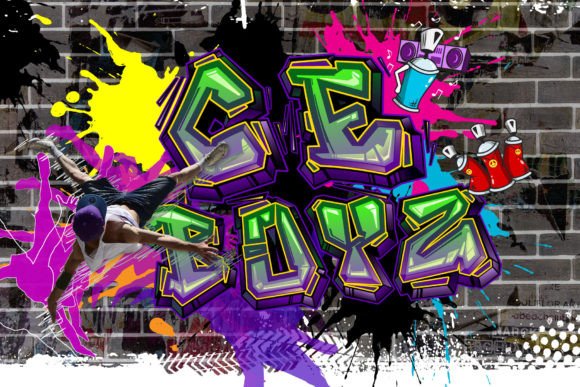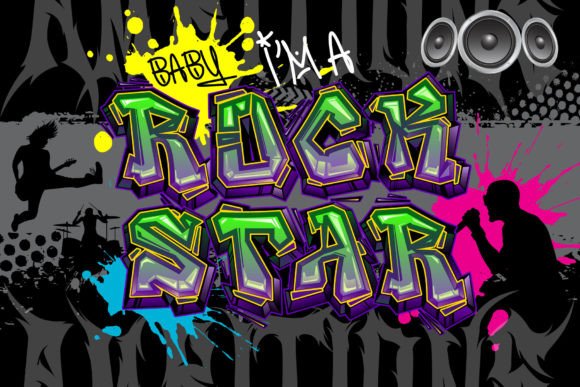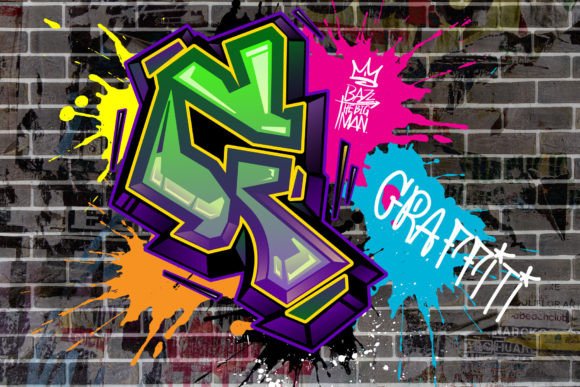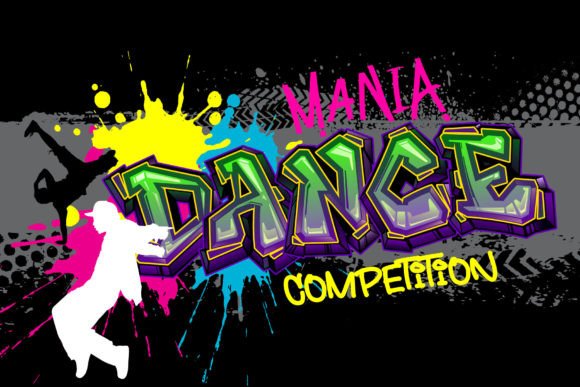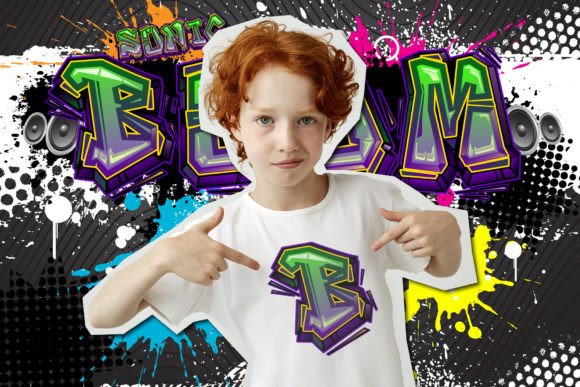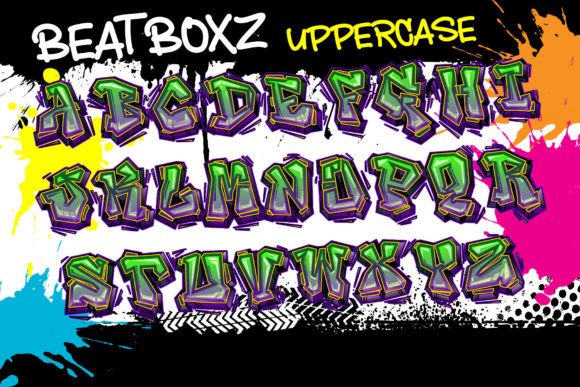
Get Ready to Unleash Your Creativity with Beat Boxz Font
Remember that moment when you stumbled upon the perfect color palette or font combination, and your design suddenly came alive? That’s what happens when you add the dynamic Beat Boxz Font to your creative arsenal. This revolutionary font encapsulates the raw energy of graffiti art, transforming it into a stunning, color display font that’s perfect for designers looking to add an edgy, contemporary vibe to their work.
With Beat Boxz Font, the possibilities are endless. Whether you’re designing t-shirts, sportswear, logos, or advertisements, this font is sure to bring a burst of kinetic energy and artistic freedom to your creations. Its versatility and compatibility with various design programs make it an invaluable tool for designers looking to push the boundaries of their craft.
Beat Boxz Font Key Features
- Font Family: Beat Boxz is a unique, digital font with a bold and edgy design, perfect for music and entertainment-related projects.
- Character Set: Includes a wide range of characters, including uppercase and lowercase letters, numbers, and special characters, making it suitable for various text-based applications.
- Unique Characteristics: Beat Boxz features a distinctive, hand-drawn design with a bold and gritty texture, giving it a unique and eye-catching appearance.
Beat Boxz Font Review
Overall, I think the Beat Boxz Font is a fun and quirky choice for a project. It’s perfect for adding a touch of personality to a design, especially for something like a music-related brand or product.
- ✨ Unique and playful design: The font is inspired by classic beatbox culture and it shows in its bold, rhythmic lines.
- ✨ Good for headings and titles: The font is perfect for grabbing attention and making a statement, which makes it great for headings and titles.
- ✨ Versatile: The font comes in a range of weights and styles, making it easy to use in a variety of contexts.
- ⚠️ Not suitable for body text: While the font is great for headings and titles, it can be difficult to read in large blocks of body text.
- ⚠️ Limited language support: The font may not support all languages, which could be a limitation for global brands or products.
Overall, I think the Beat Boxz Font is a great choice for designers who want to add a touch of personality to their projects. While it may have some limitations, it’s a fun and unique font that can really make a design stand out.
Tips for Getting the Most Out of Beat Boxz Font
Here are some tips for getting the most out of the Beat Boxz font:
- Pair the Beat Boxz font with other fonts to create a unique and eye-catching design.
- Use the Beat Boxz font to add a touch of personality and whimsy to your designs.
The Beat Boxz font is perfect for:
- Music-related designs, such as album art and concert posters.